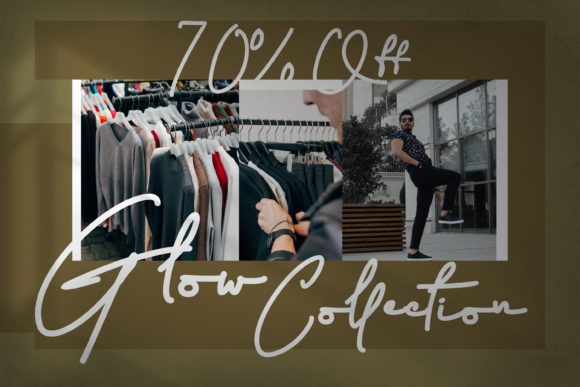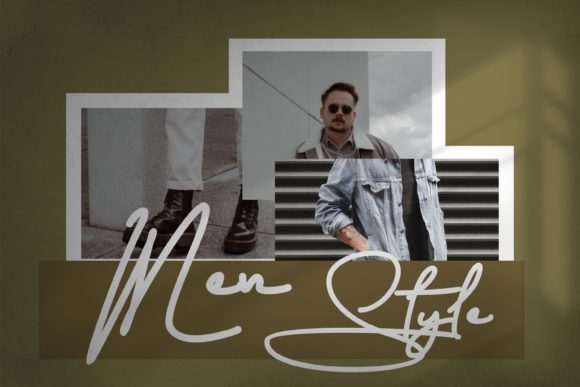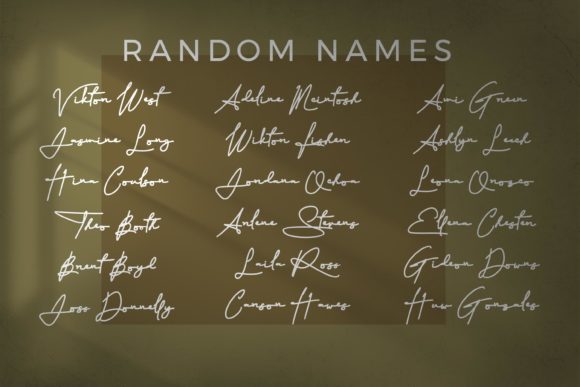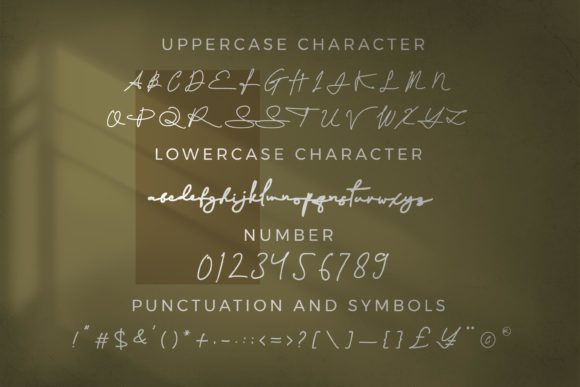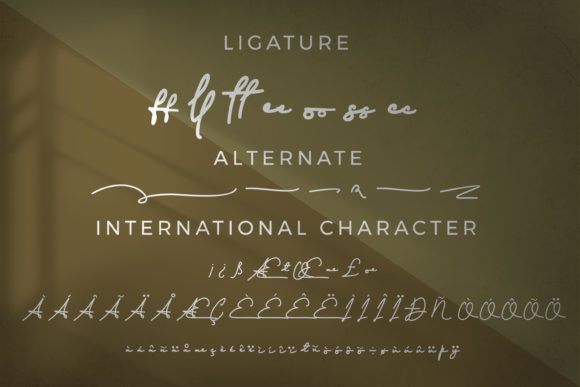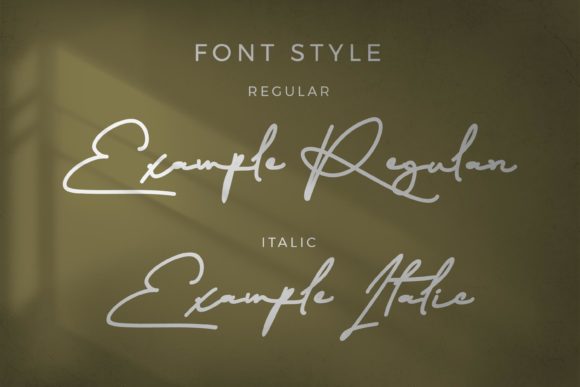
Fahira Font: The Charming Script Font to Elevate Your Designs
Are you tired of using the same old fonts in your designs? Look no further than Fahira Font, a lovely script font that is sure to add a touch of charm and playfulness to your creative projects. With its unique and dancing characters, Fahira Font is the perfect addition to any designer’s toolkit.
What is Fahira Font?
Fahira Font is a script font that features charming, playful characters that seem to dance along the baseline. Its elegant and cursive design makes it perfect for a variety of design projects, from wedding invitations and party decorations to branding and advertising materials. Whether you’re a designer, crafty DIY enthusiast, or simply someone who loves to create, Fahira Font is sure to inspire your creativity.
Key Features of Fahira Font
• Unique and Playful Characters: Fahira Font features charming and playful characters that add a touch of whimsy to any design project.
• Elegant and Cursive Design: The font’s elegant and cursive design makes it perfect for a variety of design projects, from formal to informal.
• Easy to Read: Despite its playful design, Fahira Font is easy to read, making it perfect for use in both digital and print materials.
• Highly Versatile: Fahira Font can be used in a variety of design projects, from wedding invitations and party decorations to branding and advertising materials.
Why Use Fahira Font?
There are many reasons why designers and crafters should consider adding Fahira Font to their toolkit. Here are just a few:
• Adds a Touch of Whimsy: Fahira Font’s playful design adds a touch of whimsy to any design project, making it perfect for designers who want to create unique and eye-catching materials.
• Perfect for Creative Projects: Fahira Font is perfect for use in creative projects, such as wedding invitations, party decorations, and DIY crafts.
• Enhances Brand Identity: Fahira Font can be used to enhance brand identity by adding a touch of elegance and sophistication to branding materials.
• Easy to Pair with Other Fonts: Fahira Font is easy to pair with other fonts, making it perfect for use in a variety of design projects.
How to Use Fahira Font
Using Fahira Font is easy! Here are a few tips for incorporating it into your design projects:
• Use it as a Title Font: Fahira Font is perfect for use as a title font, adding a touch of elegance and sophistication to any design project.
• Pair it with Other Fonts: Fahira Font pairs well with other fonts, making it perfect for use in a variety of design projects.
• Experiment with Different Sizes: Fahira Font looks great in a variety of sizes, from small and delicate to large and bold.
In conclusion, Fahira Font is a lovely script font that is sure to add a touch of charm and playfulness to any design project. With its unique and dancing characters, elegant and cursive design, and highly versatile nature, Fahira Font is the perfect addition to any designer’s toolkit. Whether you’re a designer, crafty DIY enthusiast, or simply someone who loves to create, Fahira Font is sure to inspire your creativity and elevate your designs.